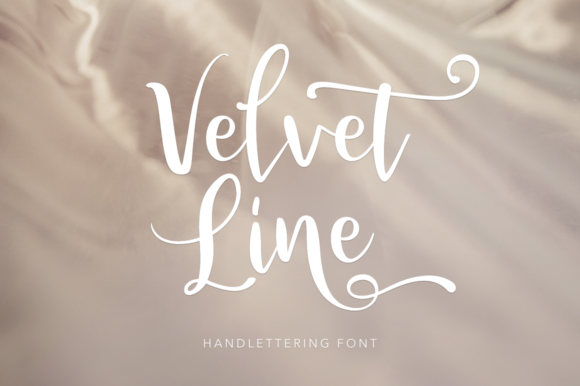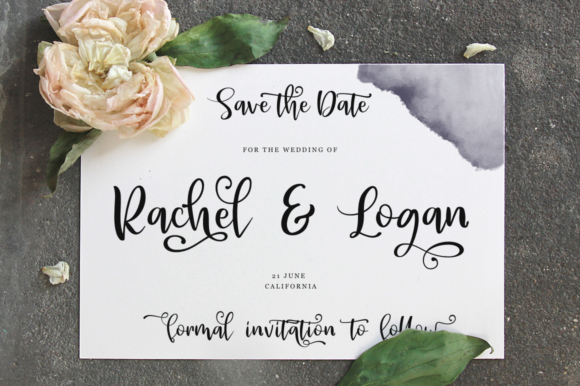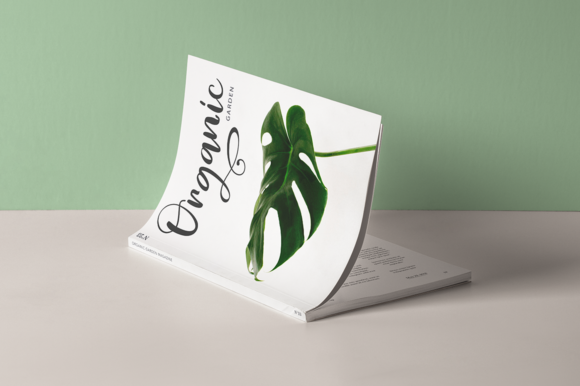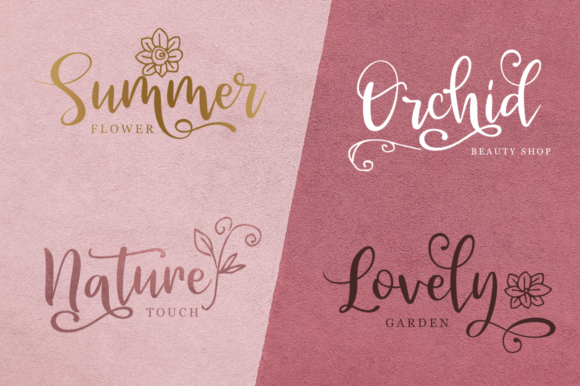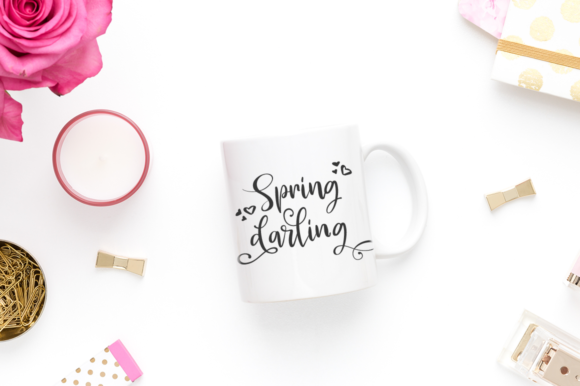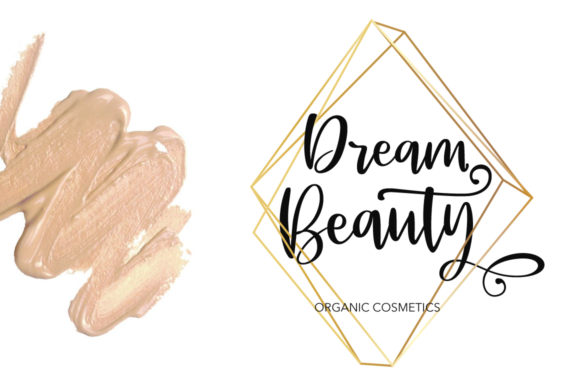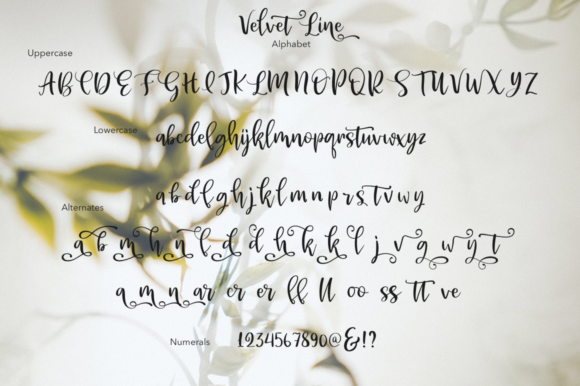
Velvet Line Font
Velvet Line is a soft and sweet handwritten font with an incredible charm. Light, yet elegant, it will turn any design project into a true stand out!